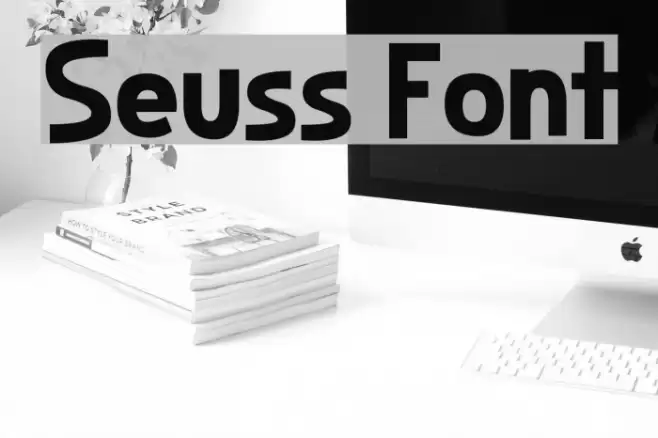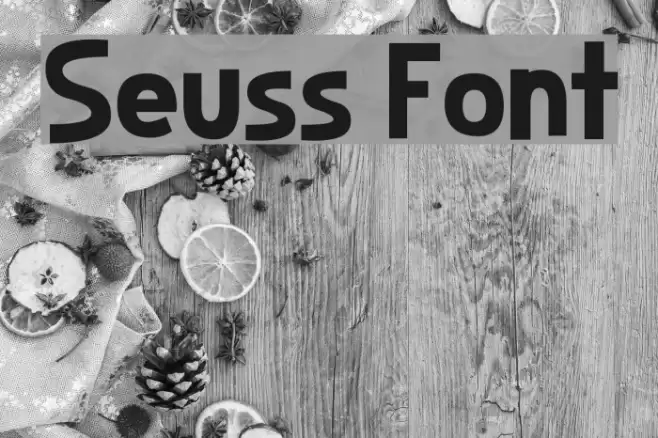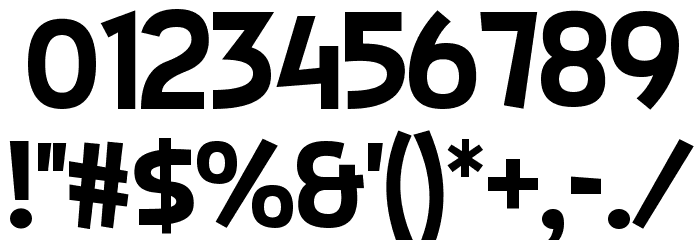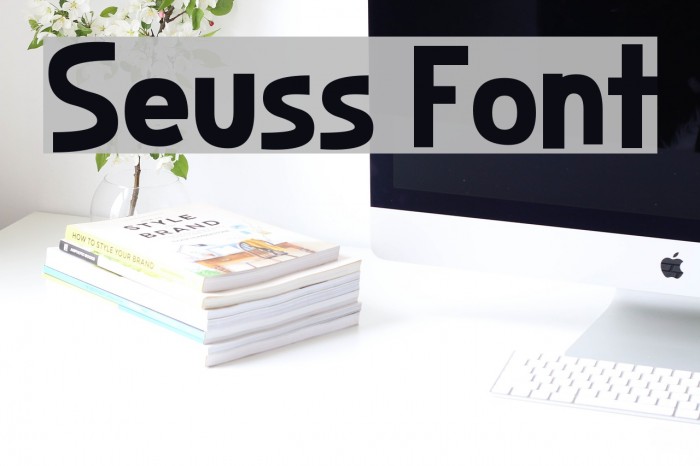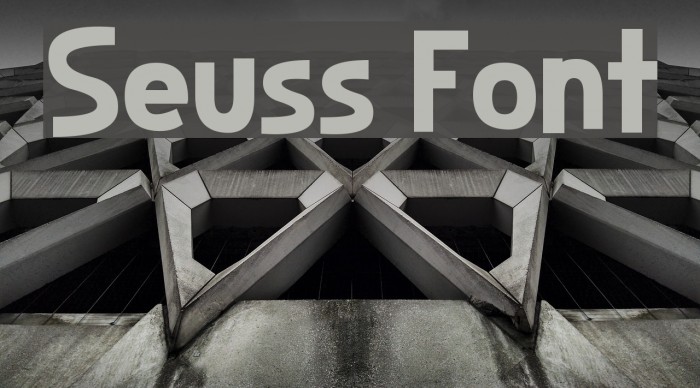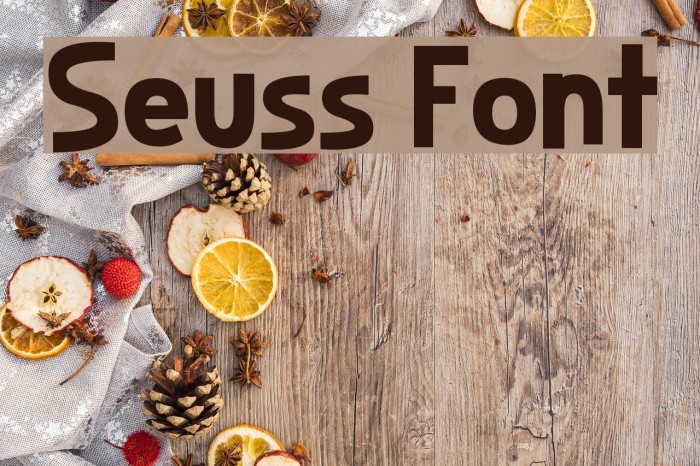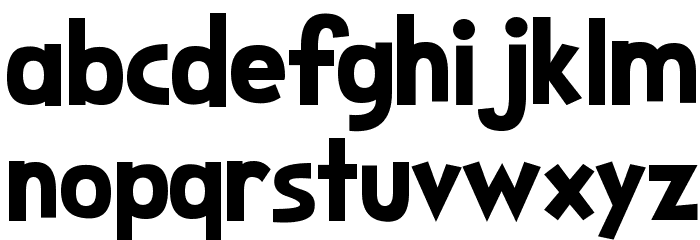
Seuss Font
Seuss Description
This playful and whimsical font features bold, rounded characters with a slightly irregular shape, giving it a fun and lively appearance. The uppercase letters are tall and commanding, while the lowercase letters maintain a consistent, friendly look. The numbers are equally bold and rounded, ensuring readability and a cohesive style throughout. Special characters are designed with the same playful aesthetic, making this font suitable for creative and informal projects. Its unique style is reminiscent of children's books and playful themes, making it ideal for projects that require a touch of whimsy and creativity.
A bold, playful font with rounded, whimsical characters from Uncategorized fonts.
- Proposed Projects: Ideal for children's books, playful branding, creative posters, and informal invitations.
- Overall Style: Playful, Whimsical